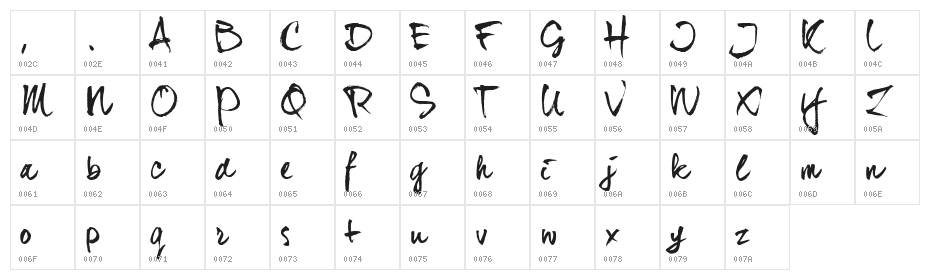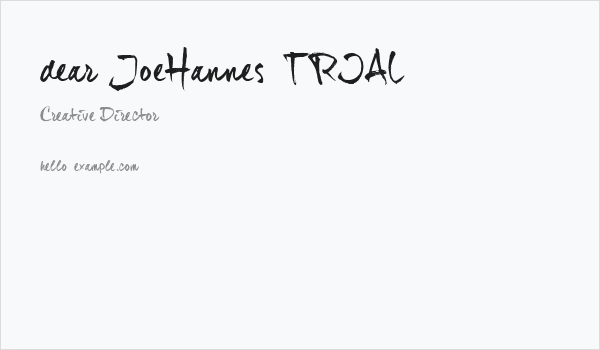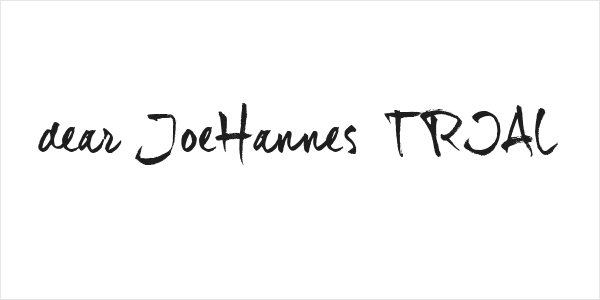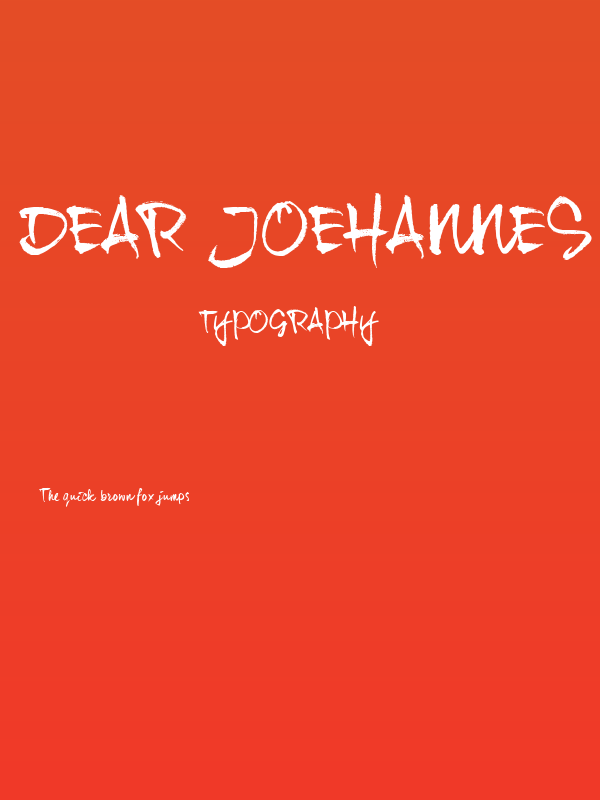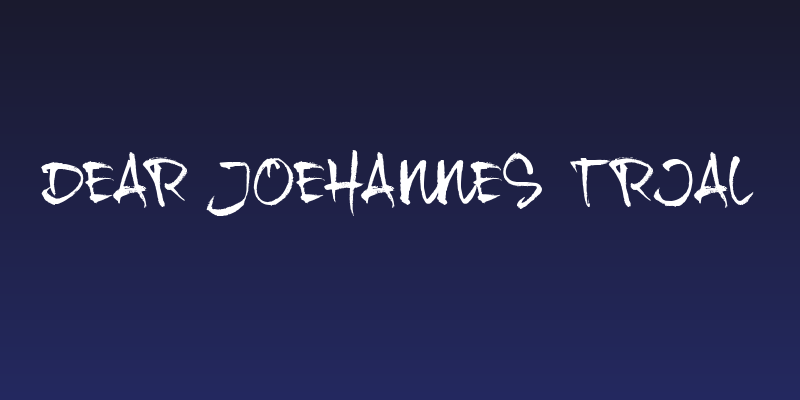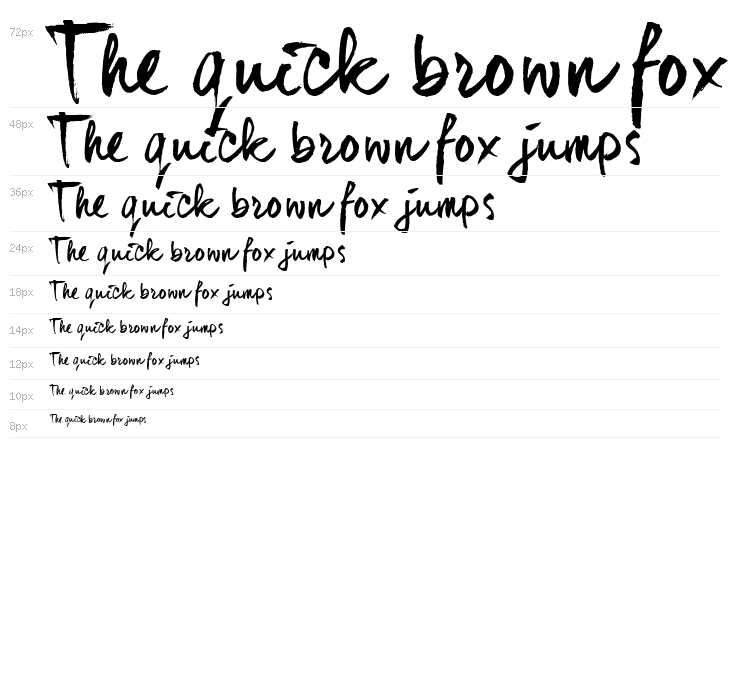
dear_JoeHannes_TRIAL Font
dear_JoeHannes_TRIAL Description
This font exudes a dynamic and expressive style, characterized by its brush-like strokes and fluid motion. The uppercase letters are bold and assertive, with varying thickness that adds a sense of movement and energy. The lowercase letters maintain this fluidity, offering a harmonious blend of curves and sharp edges. The numbers are equally expressive, ensuring consistency across all characters. The special characters complement the overall style, maintaining the same brush-like quality. This font is ideal for projects that require a personal touch, such as invitations, artistic branding, or expressive headlines.
| Overall Style | Expressive, Artistic |
| Use Case | Headlines, Artistic branding, Invitations |
| Proposed Projects | Ideal for artistic branding, invitations, expressive headlines, and creative projects. |